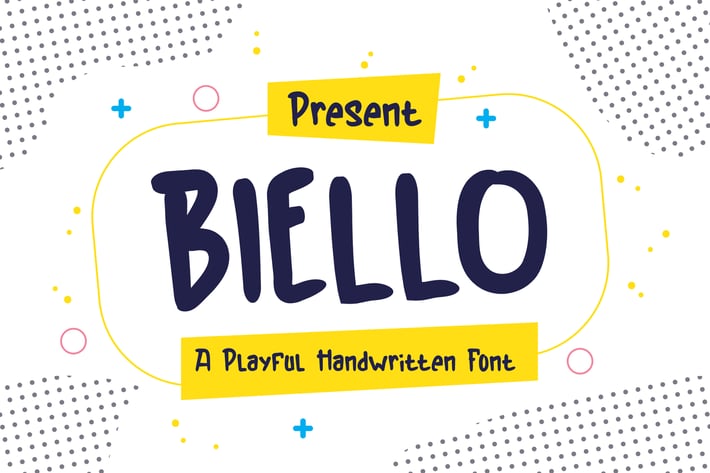
Biello Typeface - A Playful Handwritten Font
So beautiful on invitation like greeting cards, branding materials, business cards, quotes, posters, and more!